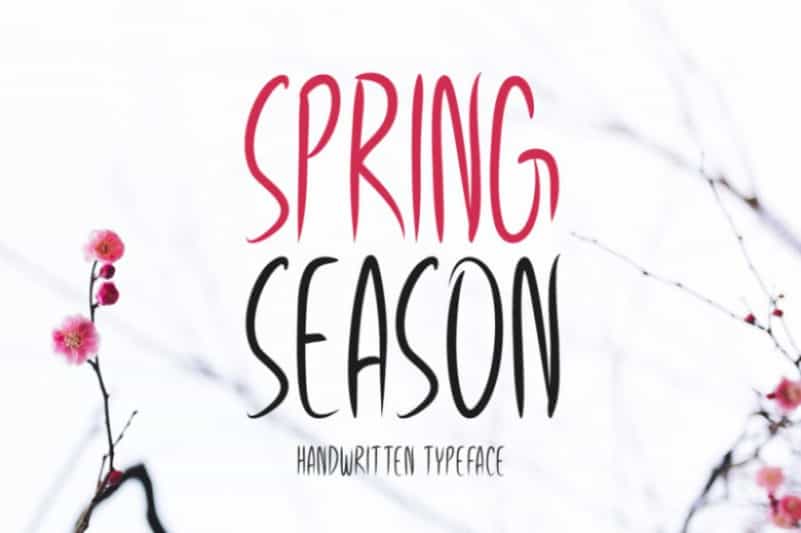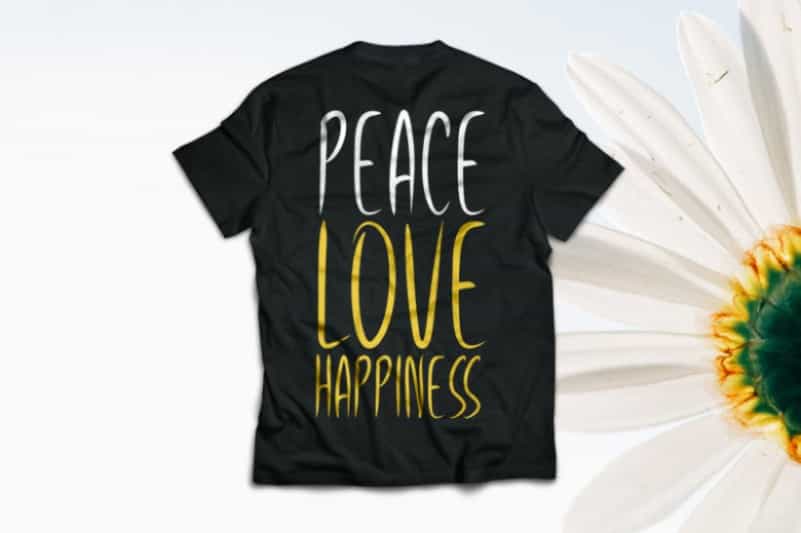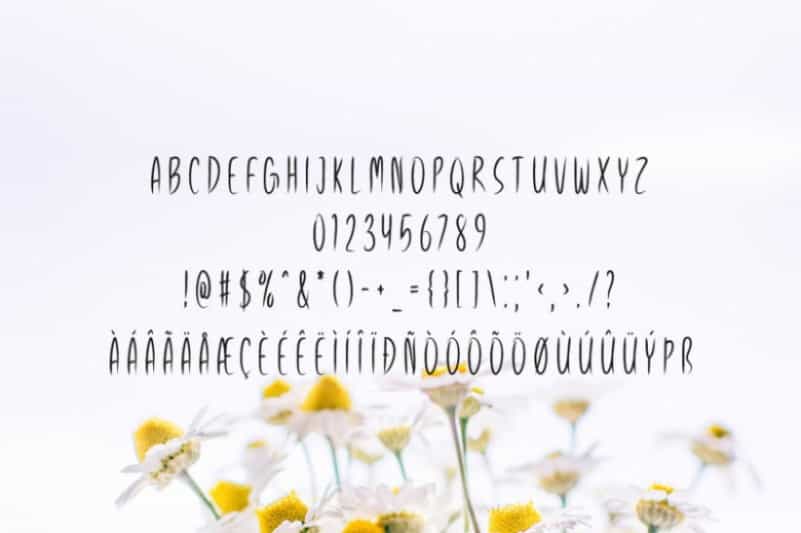
The Spring Season Font is a super casual script that can be used for a lot of things! Of course it does: uppers, lowers, punctuation, alternates, ligatures and much, much more. Spring season is perfect for the logos, stationery, T-shirt, paper, print design, website header, photo frame, flyer, music cover, poster, image slider, and many other designs.